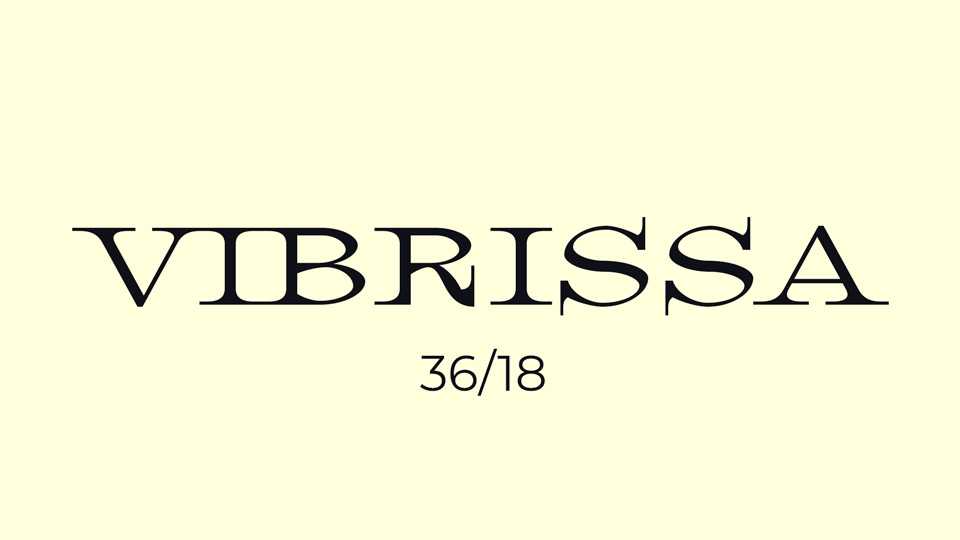
Download Vibrissa font, a fancy serif typeface inspired by some really wild lettering styles like Ogg by Sharp Type. The font features calligraphy-based techniques with this design.
Designer: Justin Penner